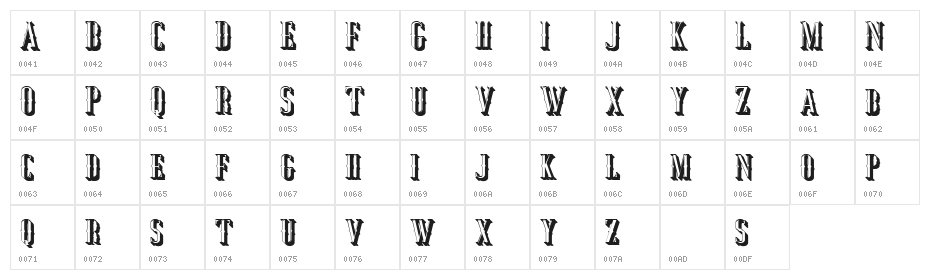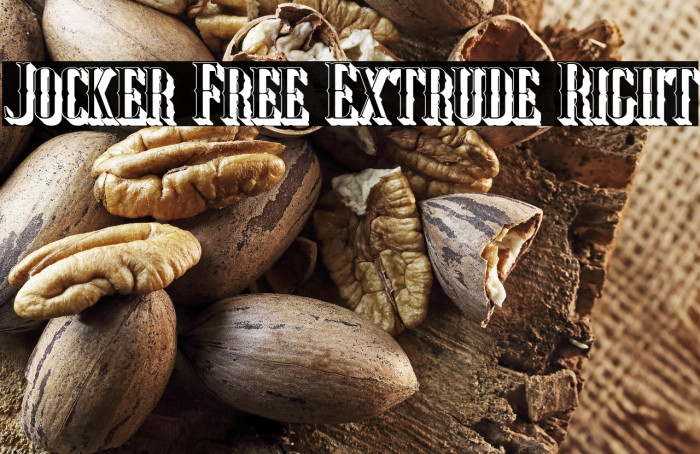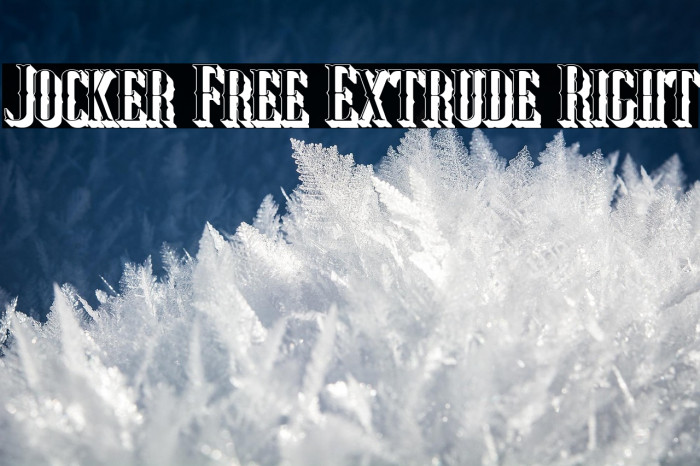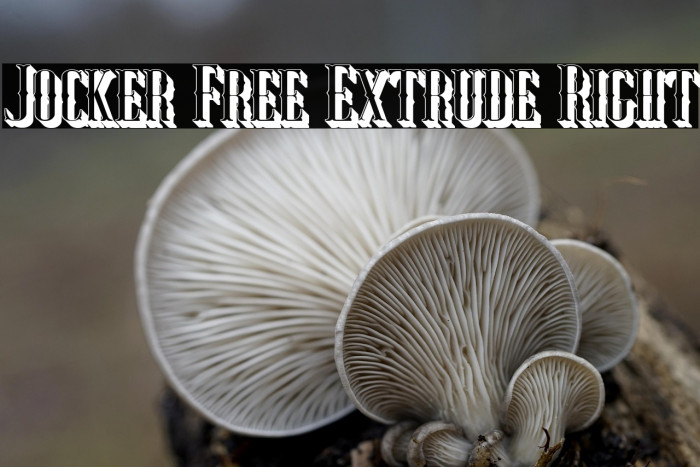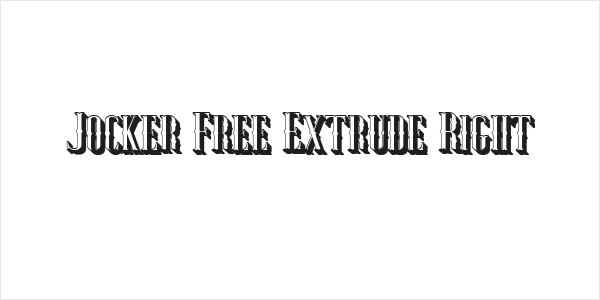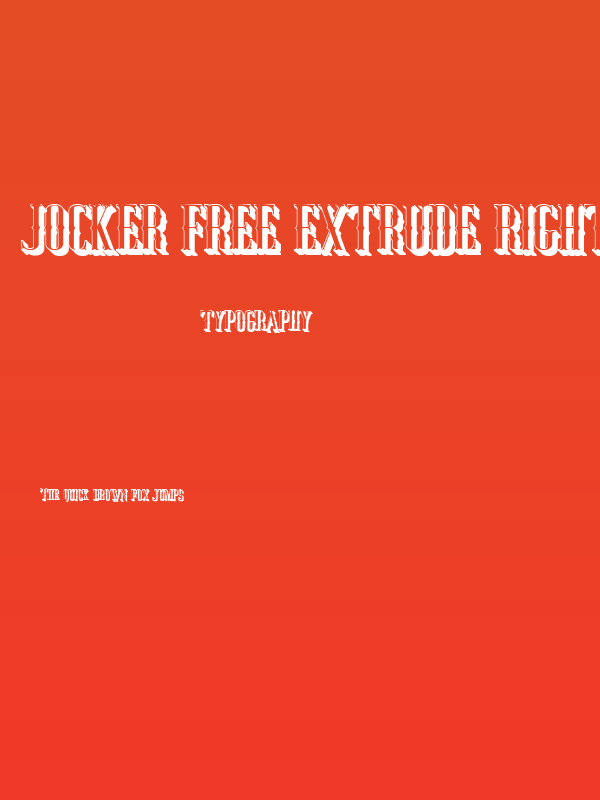
Jocker Free Extrude Right Font
Jocker Free Extrude Right Description
This font features a bold, decorative style with a three-dimensional extruded effect that gives it a striking and dynamic appearance. The characters are uppercase only, with sharp serifs and a shadow that extends to the right, enhancing the depth and visual impact. The design is reminiscent of vintage poster typography, often used in circus or carnival themes. The bold strokes and intricate detailing make it ideal for attention-grabbing headlines or titles. The spacing between characters is tight, contributing to a compact and cohesive look.
| Overall Style | Vintage |
| Proposed Projects | Ideal for vintage-themed posters, event flyers, logos, and any design requiring a bold, eye-catching headline. |